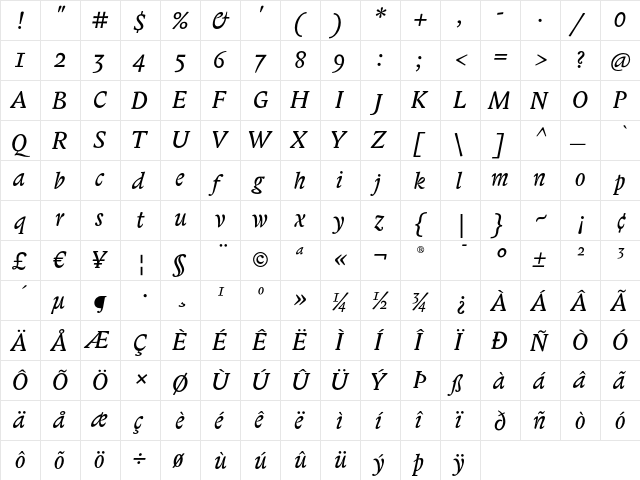
Biblon ITC Italic
Design Context for Biblon ITC Typeface
Biblon ITC takes a measured approach to typography — its balanced proportions and neutral character make it a reliable workhorse for both digital and print work. The dynamic lean of this cut emphasises speed and emphasis in any layout.
Pro Tip: Try Biblon ITC for annotation and caption copy alongside an upright companion — the contrast in angle creates a dynamic but ordered typographic system.